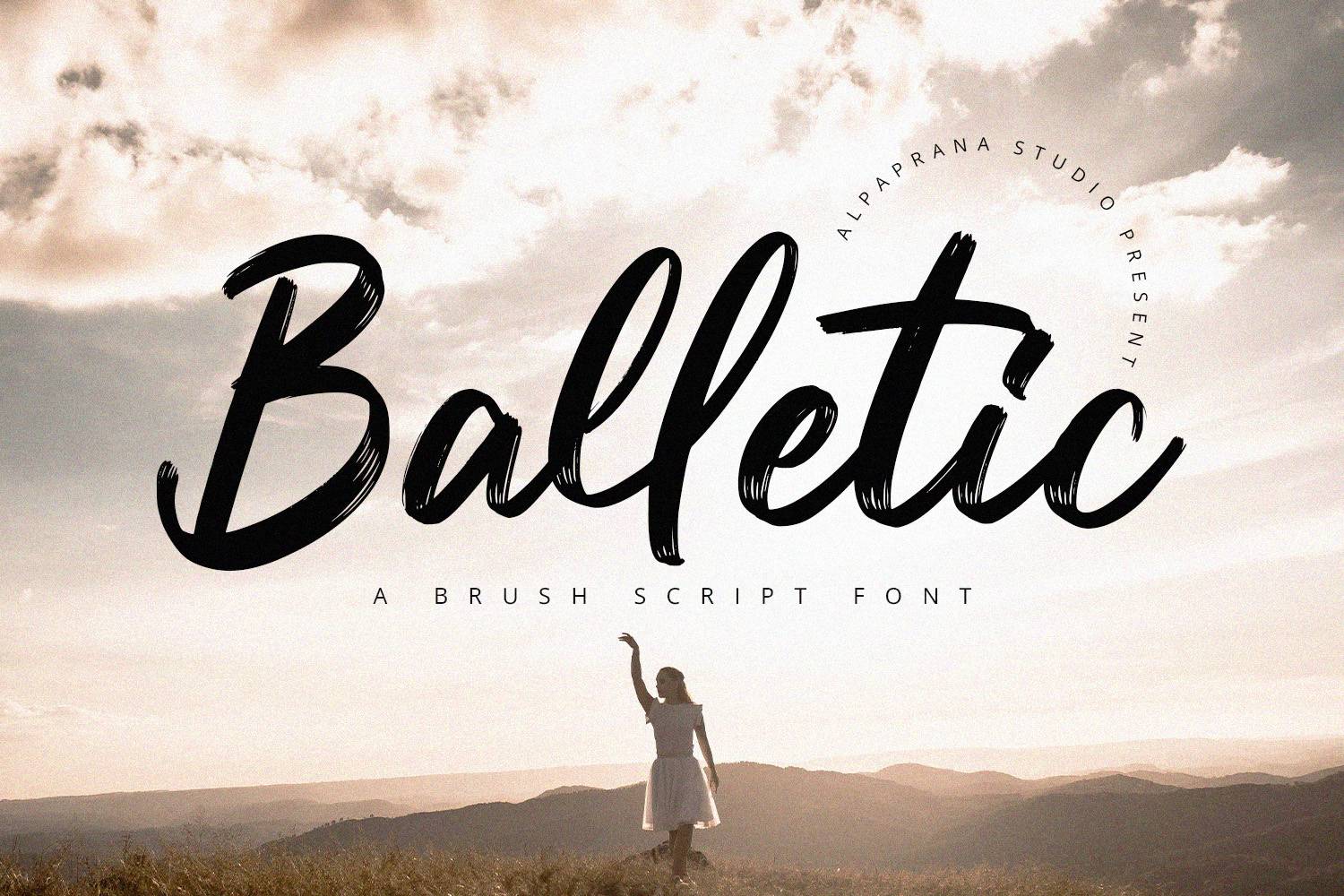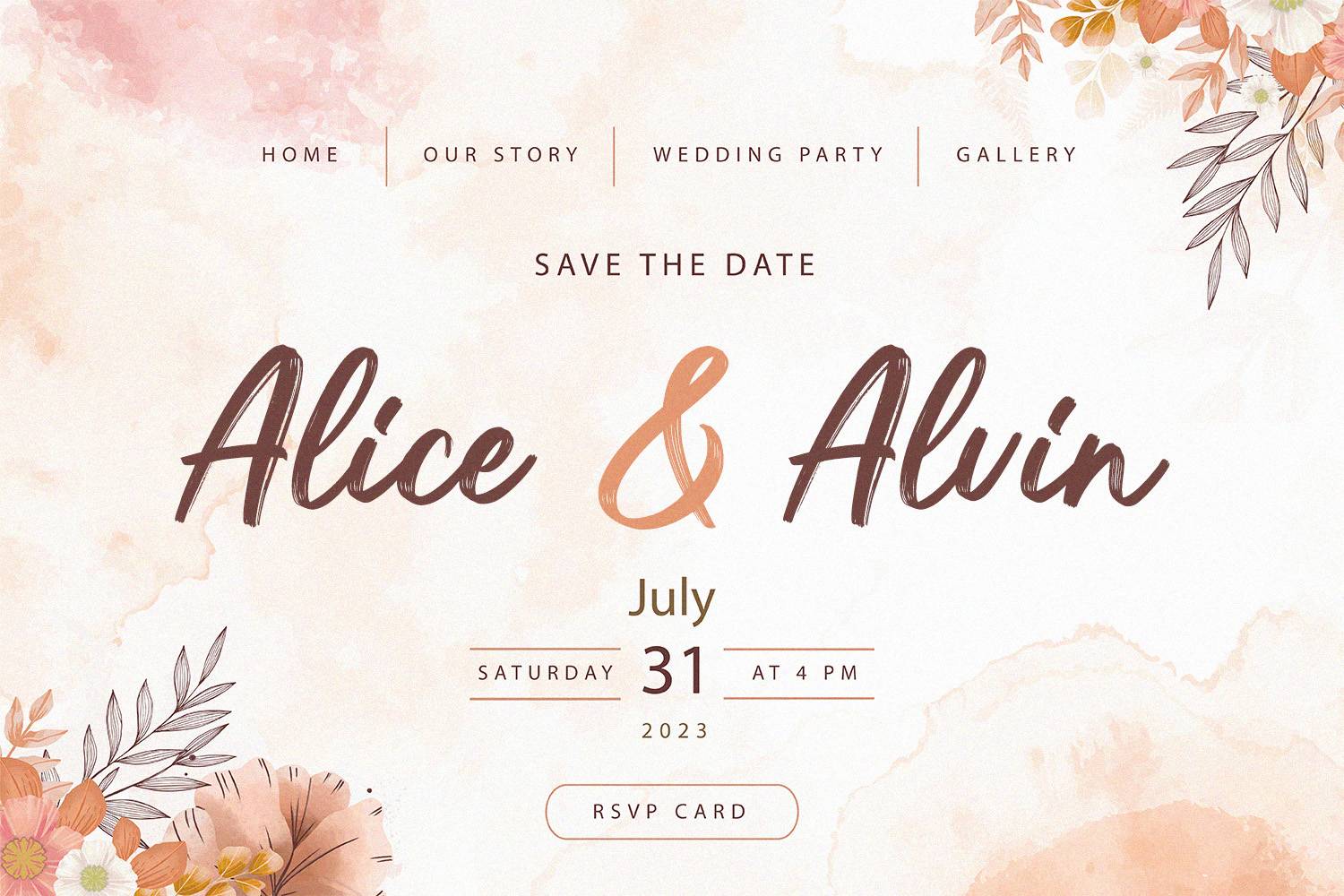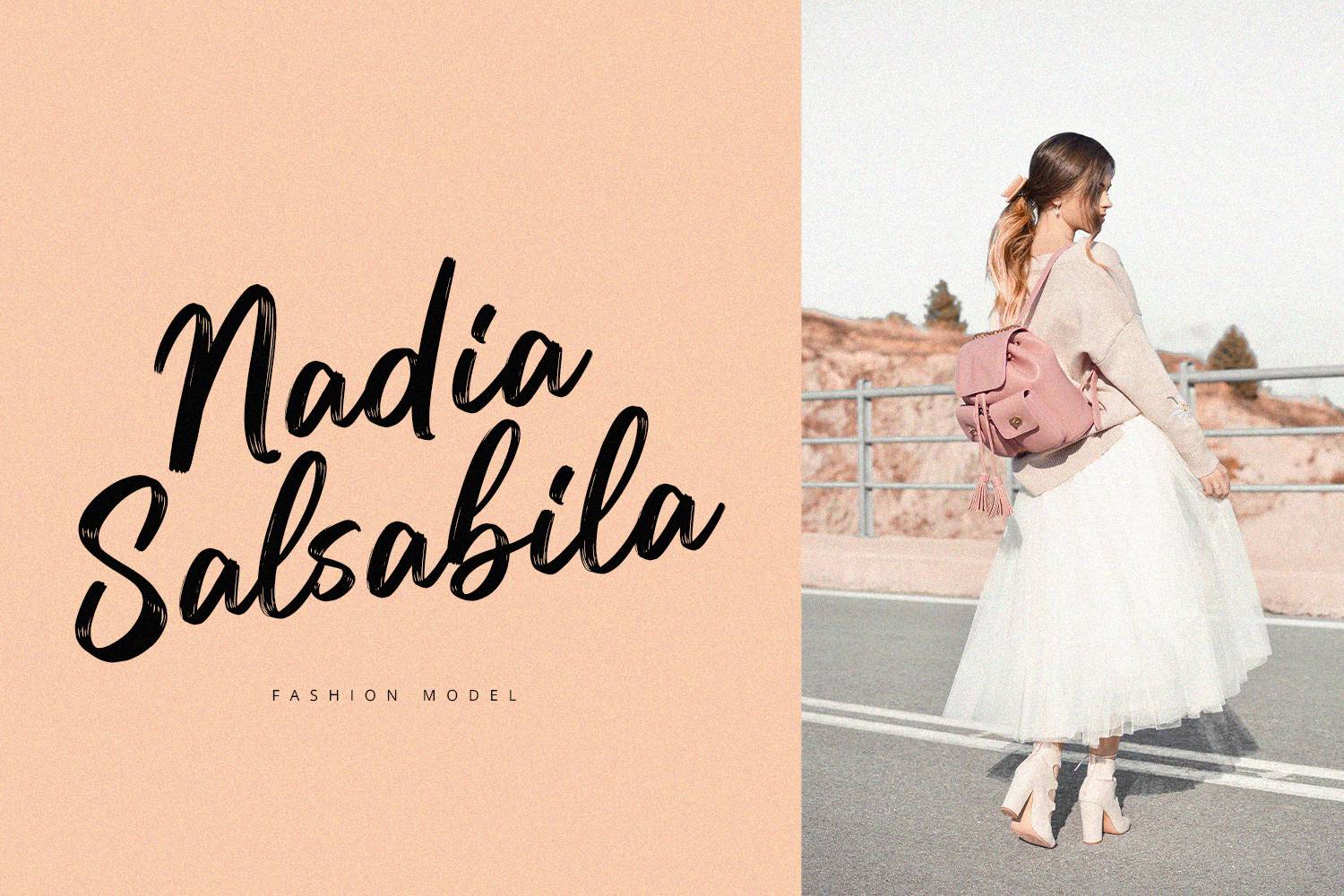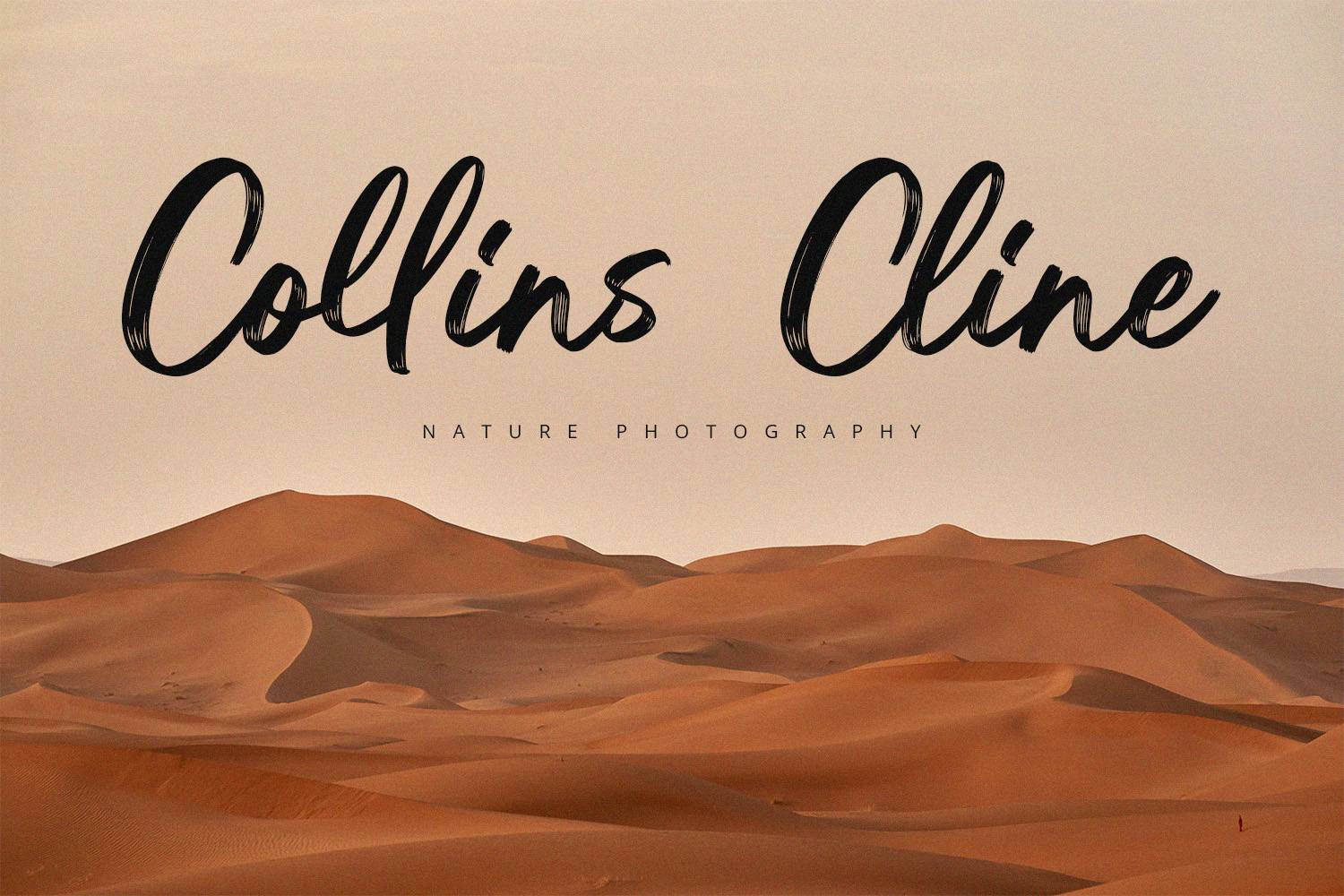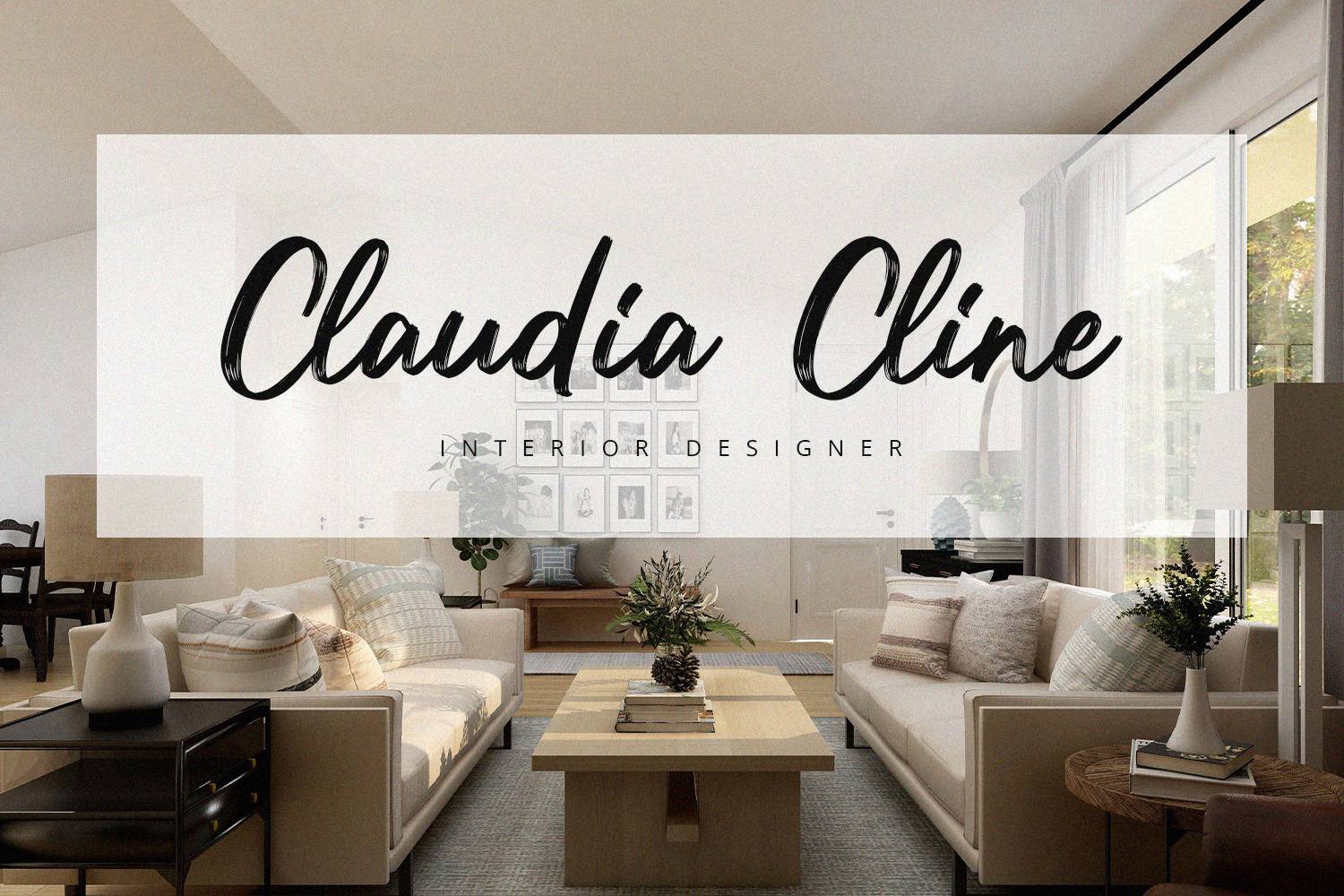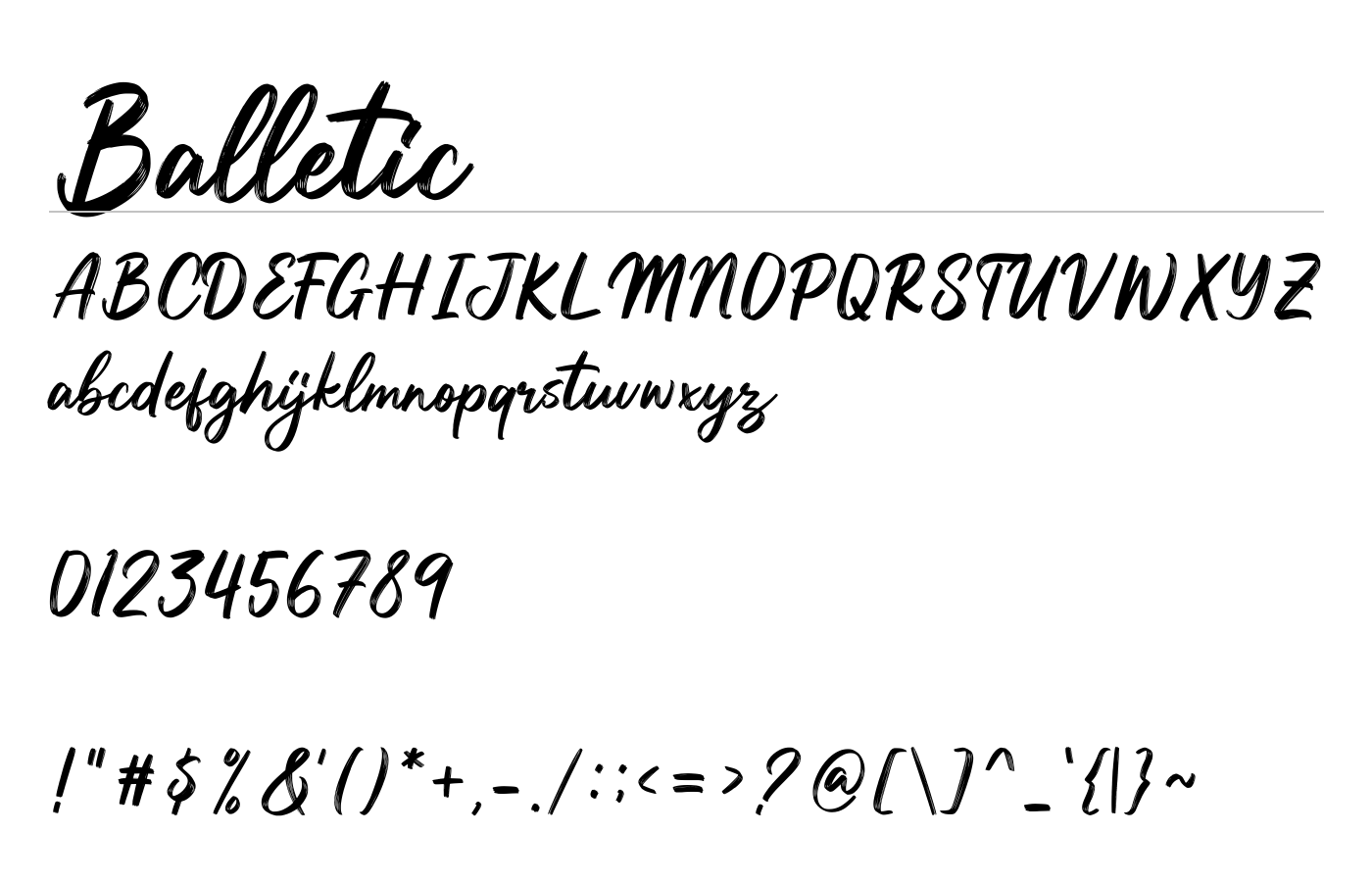
Balletic is a lively script font that combines graceful handwritten strokes with a bold, energetic style, giving it a modern yet personal feel. Its fluid letterforms and slightly textured brush effect make it ideal for creative branding, invitations, and expressive headlines where a stylish and approachable look is desired. This font shines in designs that want to convey elegance and vibrancy with a touch of artistic flair.
Balletic Font
About Balletic Font